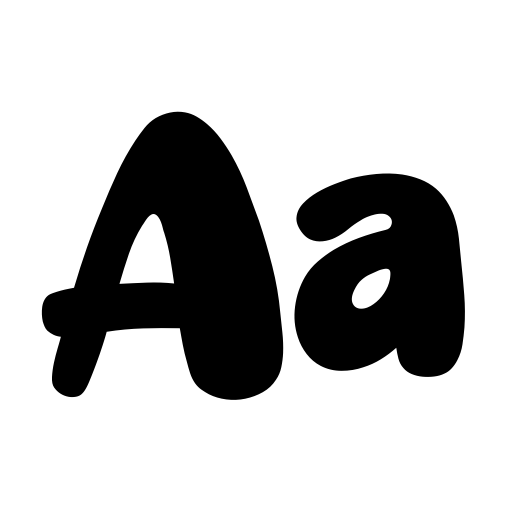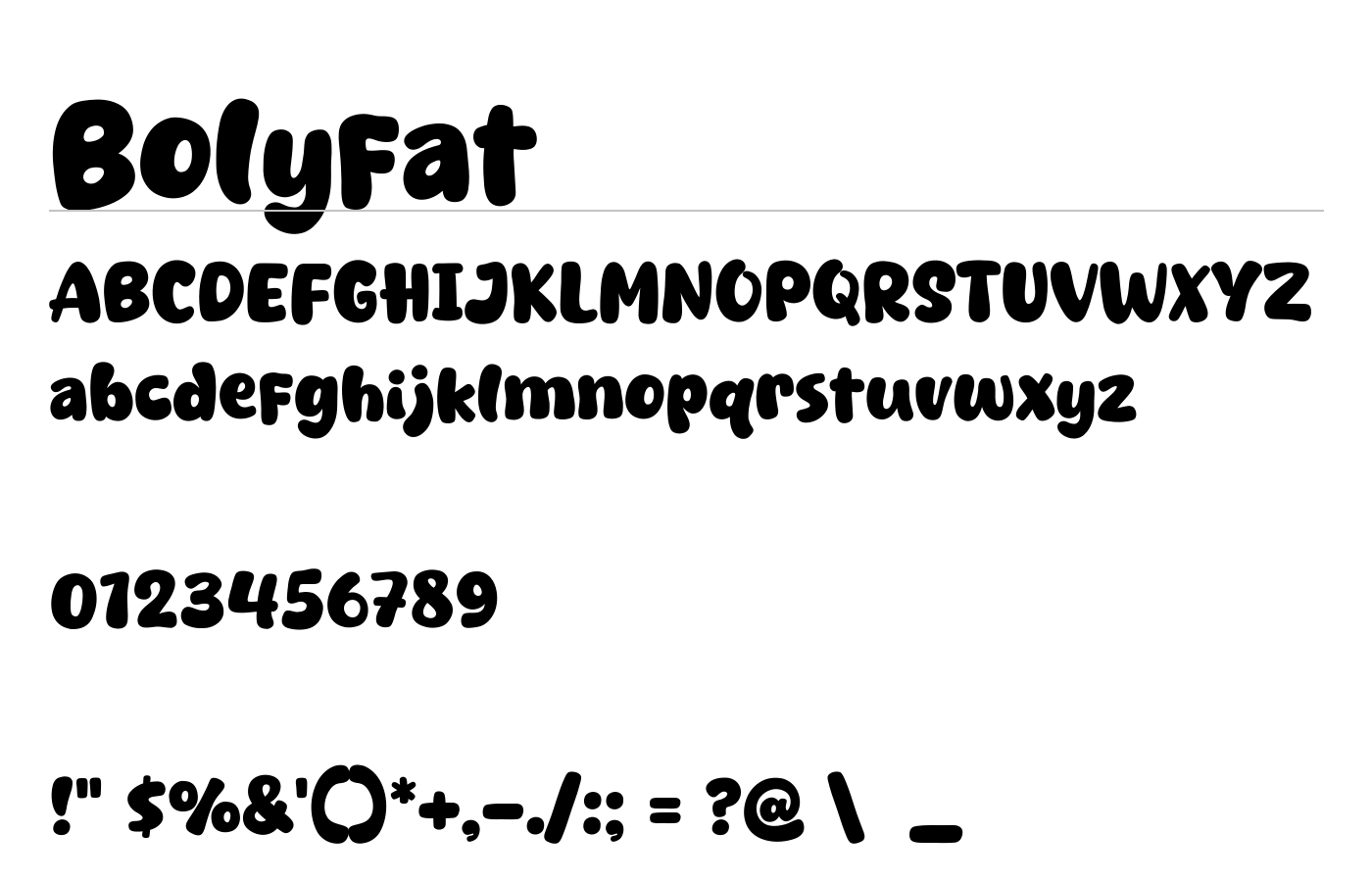
Bolyfat is a bold, playful sans serif font with rounded, chunky letterforms that give it a friendly and approachable character. Its moderate contrast and soft edges make it ideal for casual and fun design projects, lending a lively and informal vibe. This font works well in children's books, posters, logos, and branding that seek to communicate warmth and creativity.